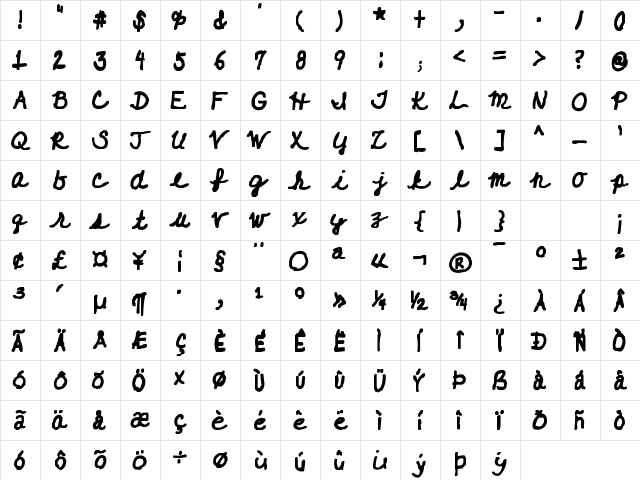
HandFont$- Regula Font Preview
HandFont$- Regula
HandFont$- Regula Font Details
| Style | Regula |
Design Context for HandFont$- Typeface
HandFont$- brings a calligraphic fluidity to the page — its connecting strokes and expressive curves give it an unmistakably human quality.
Font Pairing: Combine HandFont$- with a simple geometric sans for maximum contrast — the tension between flowing curves and clean structure is a classic typographic pairing.
Pro Tip: Use HandFont$- for short runs of text — names, titles, or taglines. Extended body copy in script faces tires the eye quickly.